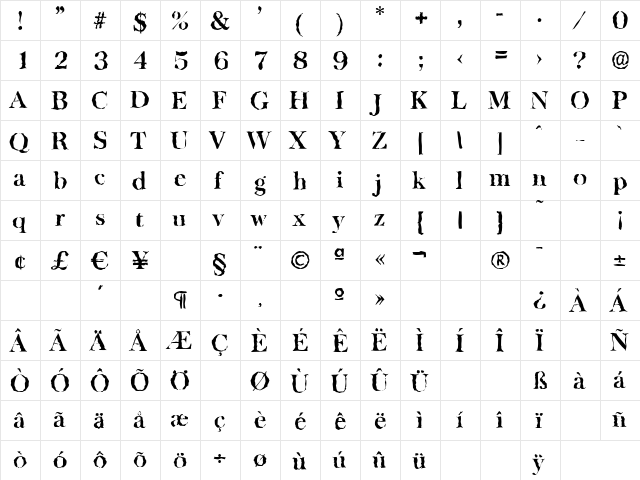
BaskervilleRandom Bold
Design Context for BaskervilleRandom Typeface
BaskervilleRandom is a composed and adaptable typeface that performs quietly and consistently across a wide range of design contexts. Its bold stroke weight gives it real presence on the page.